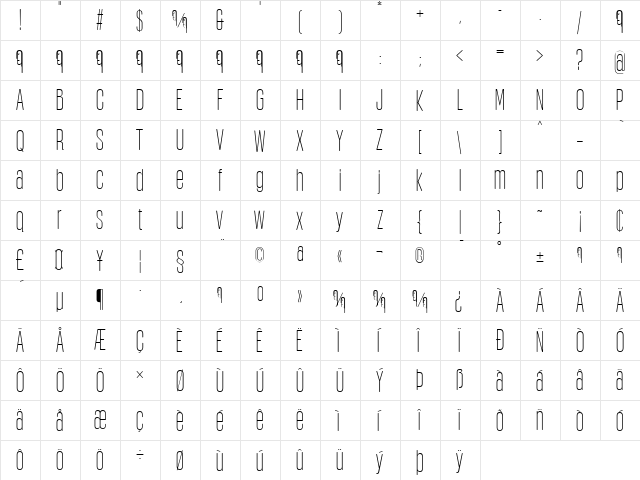
Obcecada Sans Regular
| Foundry | deFharo |
| Designer | Fernando Haro |
Design Context for Obcecada Sans Typeface
Obcecada Sans takes a measured approach to typography — its balanced proportions and neutral character make it a reliable workhorse for both digital and print work.